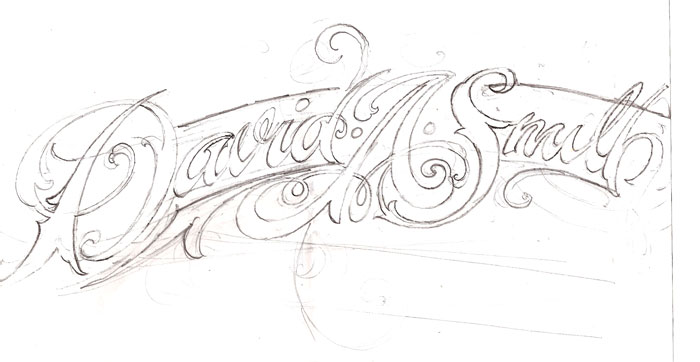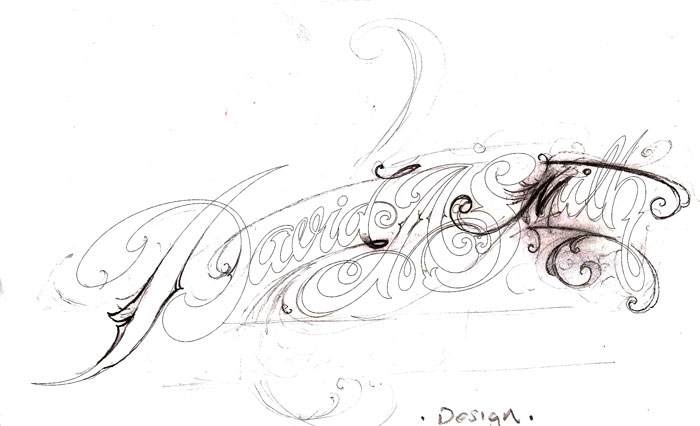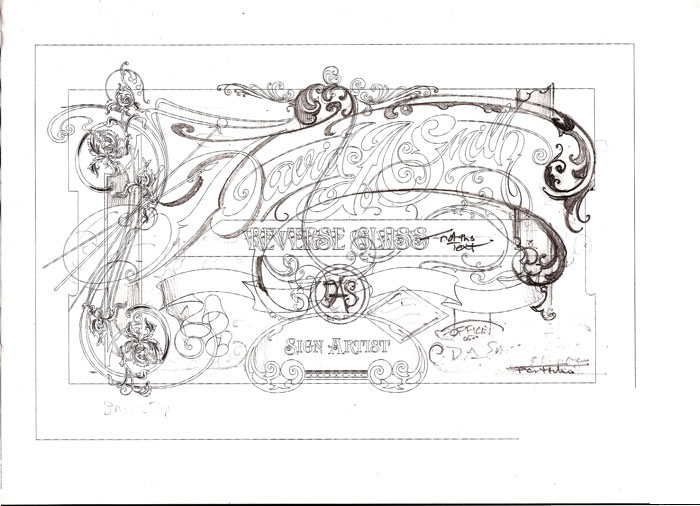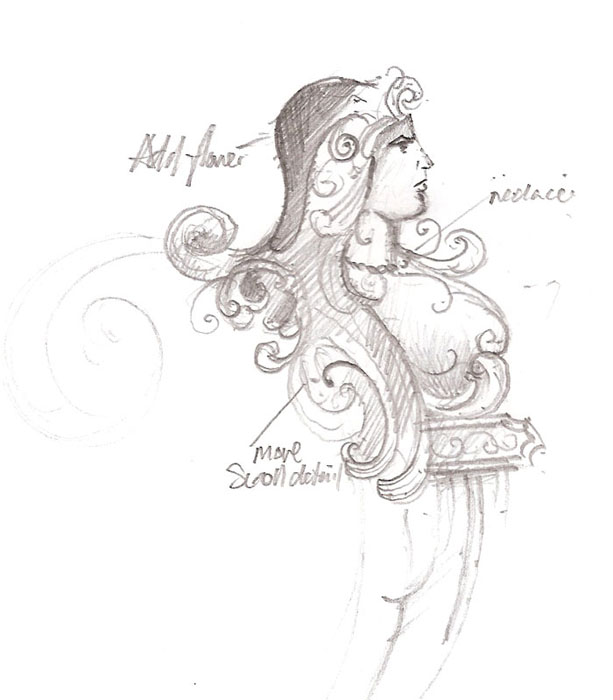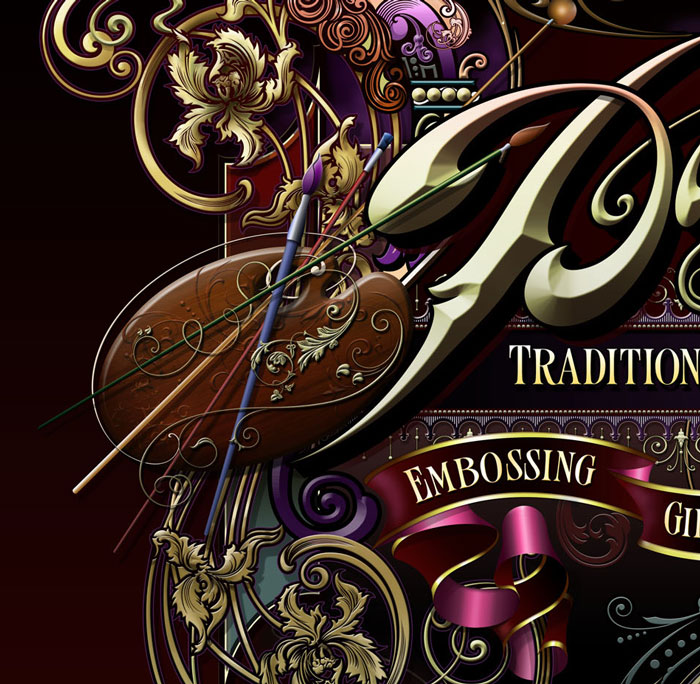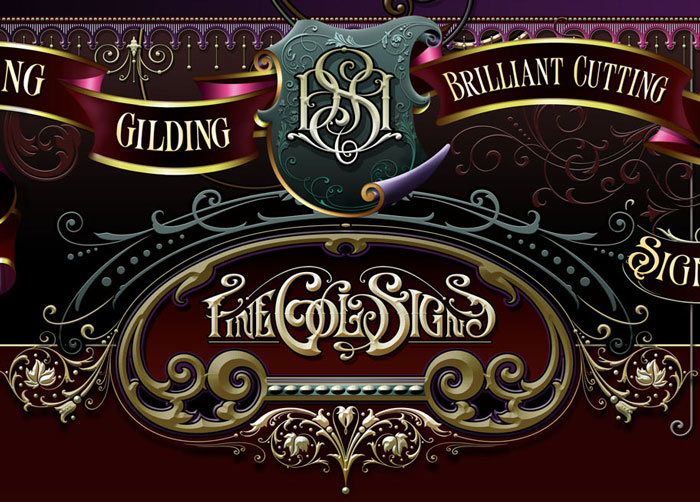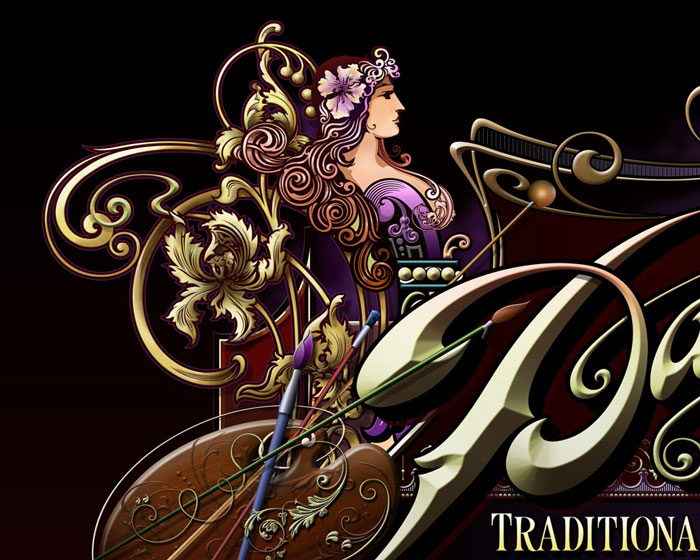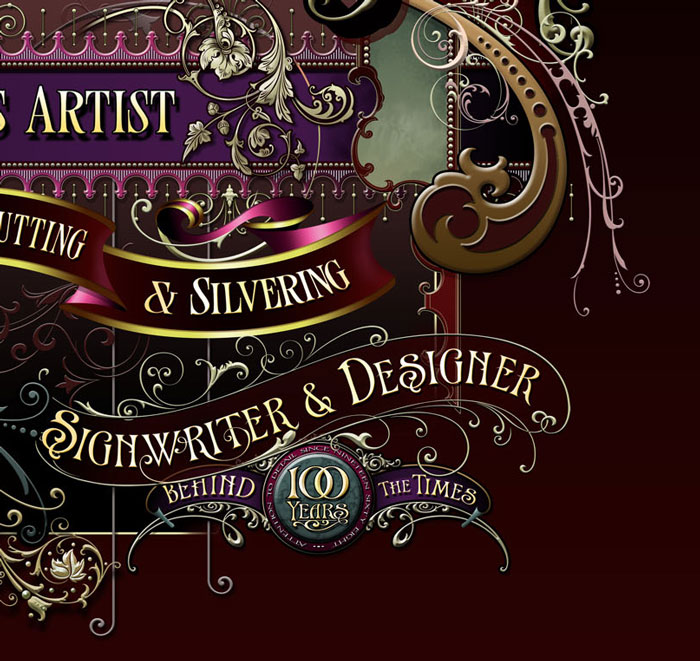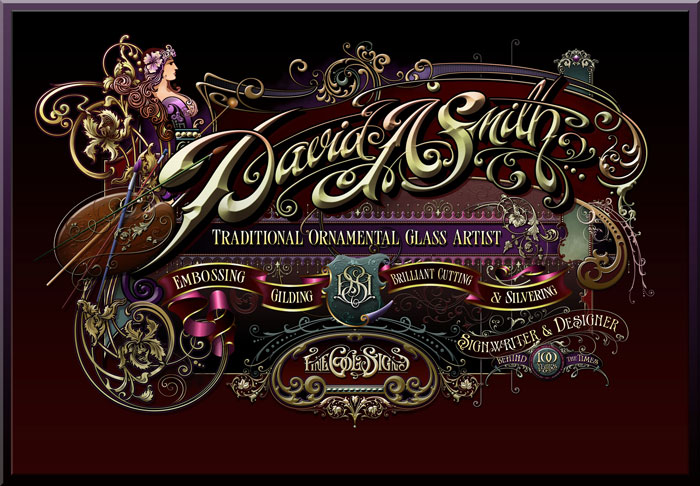
My Website Design
I recently finished my front page design for my website. I found it hard to make my mind up on what sort of look that I was going for., it seems to be more difficult trying to make your own stuff due to the amount of styles ,fonts and layouts that we could all make and come up with.
Same as alot of designers on this site I like the look of Art-Nouveau and Victorian design so I tried to mix the two together. Not sure if I did the right thing but In the end this was the route I went for my front design on my future website.
Hand drawn sketches I find are the best way to go with design before entering into computer design. I personally have more freedom with a pencil as opposed to a wacom tablet. Would like to know how others go about this process?
Some art- Nouveau scrolls with Victorian panels,at this stage I was back and fourth in the scanner trying to put this part together but making soooo many changes
My thought to adding a lady to the design would create a more elegant Art Nouveau feel to the finished design
Well thanks Raymond. I actually did finish it and I was suppost to add the other images but my connection went down ealier after posting those four pics.
Here are the finished ones.
I did actually ask Doug if he minded me using this little slogan on this part. It just seemed to work for this panel, so thanks to Doug for that. (100 Years behind the times) you may have seen it in other places also.
I made this first as part of the background to the work above but it was all to much detail and over powering infact the design was being ruined with this behind so I decided to not use it and scrap it. Probably use it somewhere down the line on another project.
This was my finished page earlier today.
I really appreciate you showing us the process. I like to start with pencil sketches too. I find that they are difficult to translate to vectors. The vector art never seems to flow as well. You obviously don't have that problem. :D